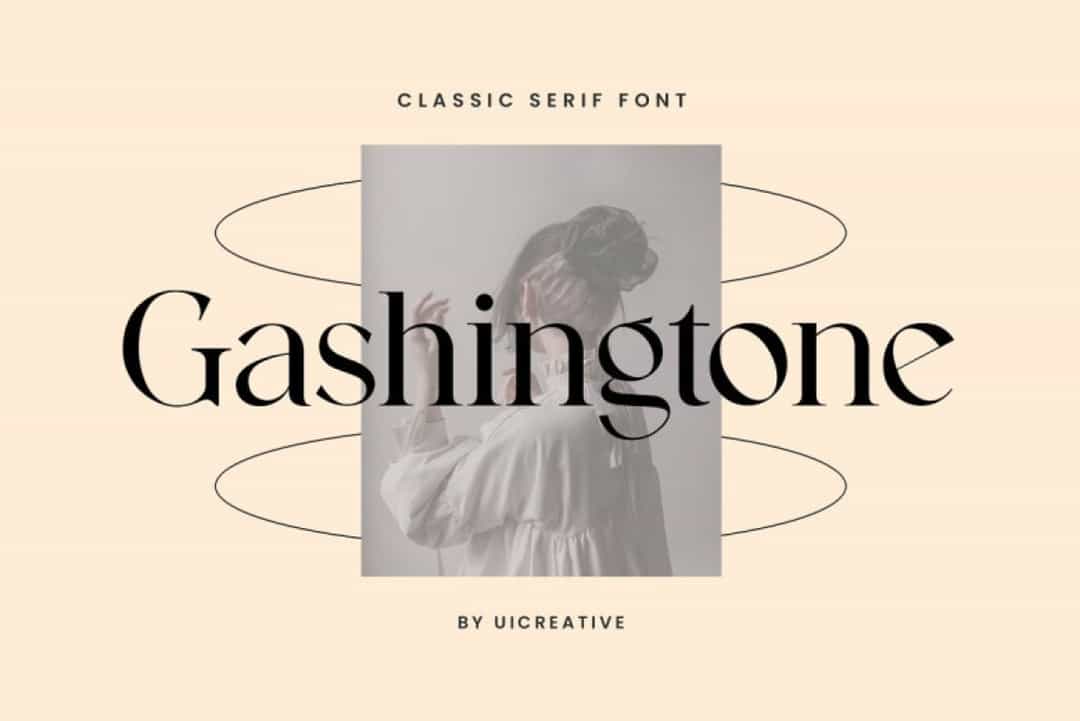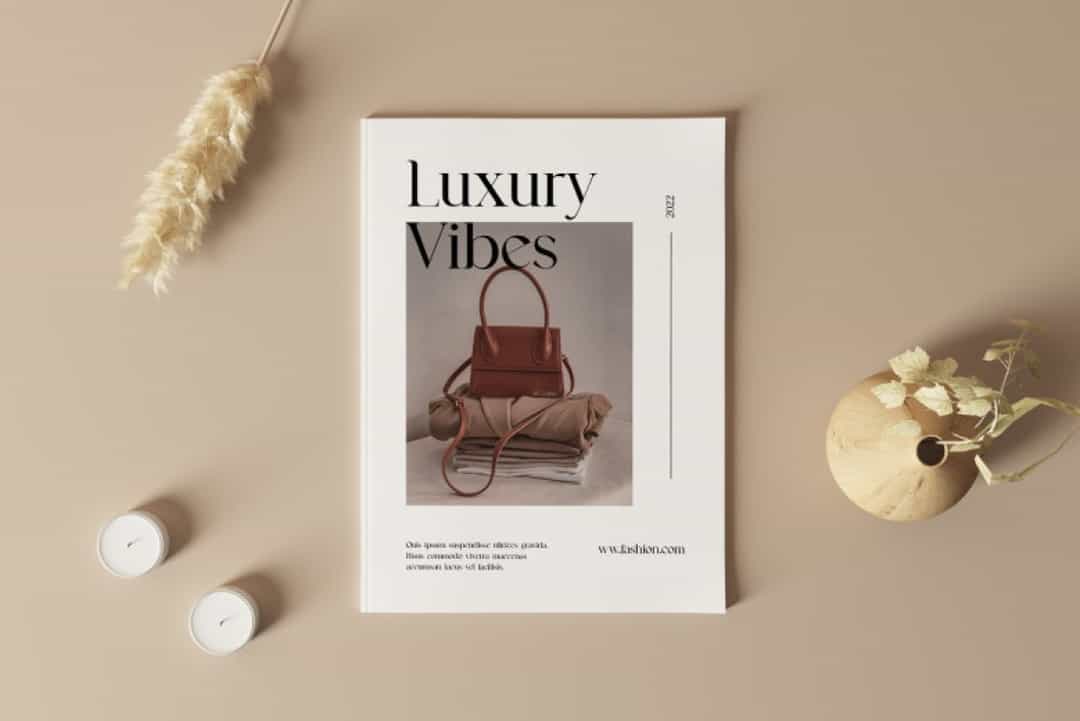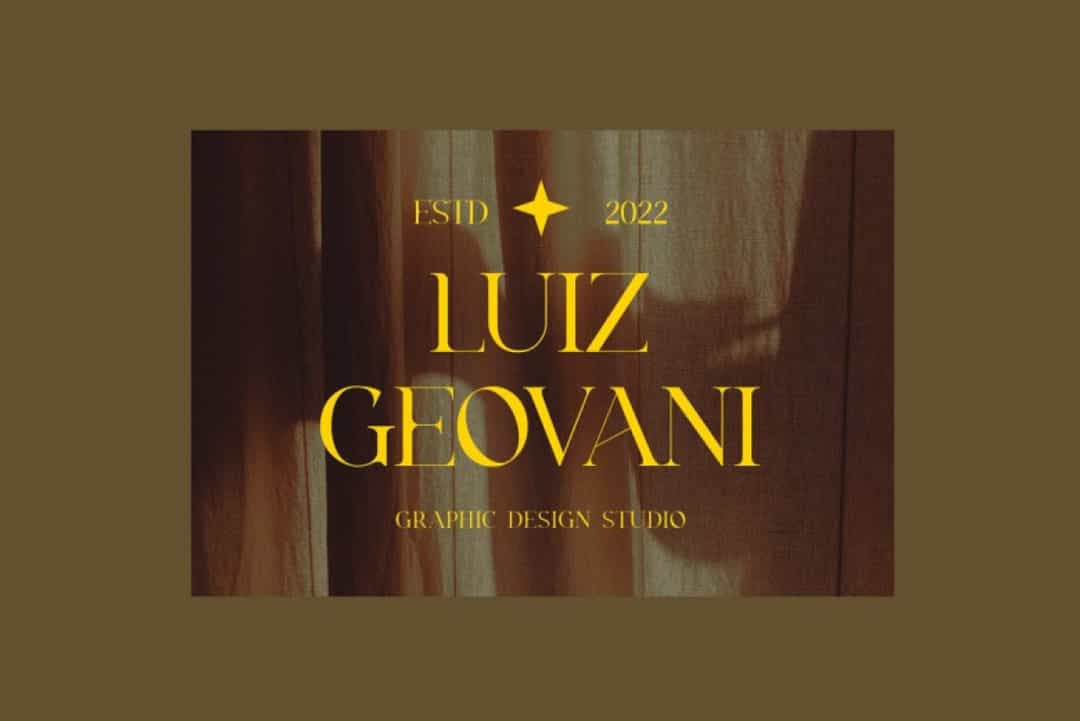
Gashingtone is an iconic serif font with modern elegance that’s suitable for use across a range of projects, such as logos, signatures, stationery wedding, typography quotes magazines or book covers, website headers branding clothing packaging and fashion-related branding that exhibit both feminine and masculine characteristics.